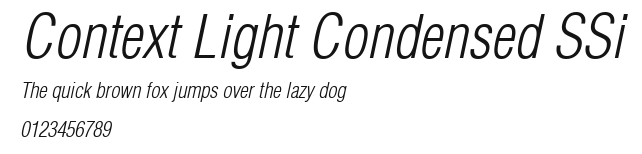
• Font Name: Context Light Condensed SSi
• Font Style: Light Condensed Italic
About Context Light Condensed SSi.ttf
Context Light Condensed SSi.ttf is a modern, elegant sans-serif font designed for ultimate readability and visual harmony. Perfect for branding, headlines, web design, and print materials.